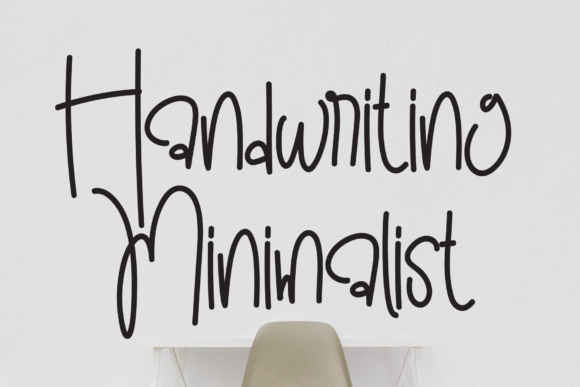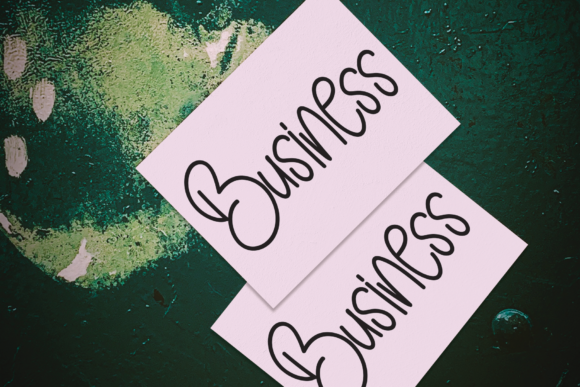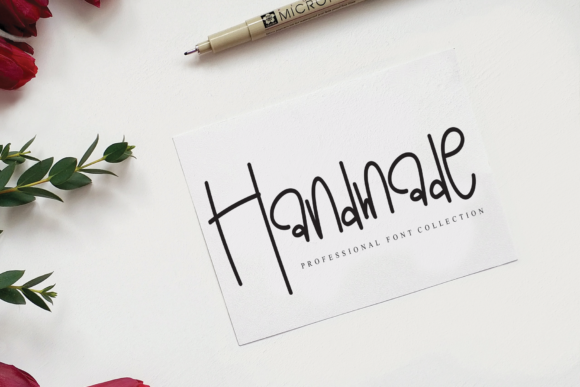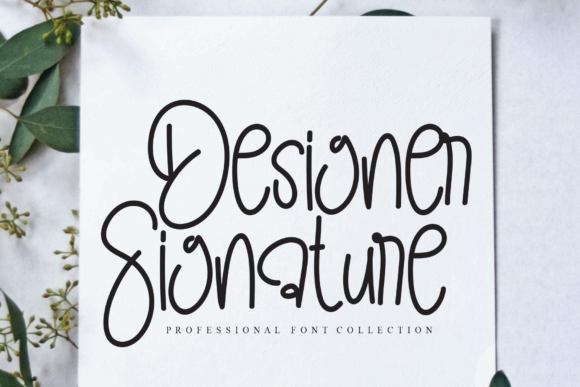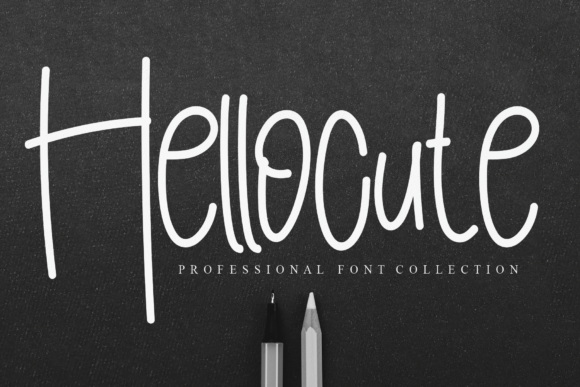
Handwriting Minimalist Font
About Handwriting Minimalist Font
Handwriting Minimalist is a cute and quirky lettered handwritten font that can be used for all chalkboard quotes or teaching material! Its authentic look will add a personal and realistic feel to your designs.